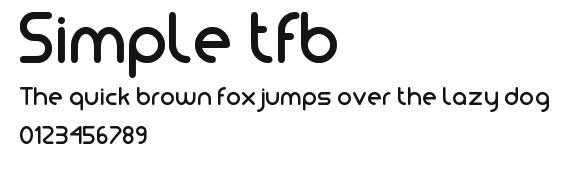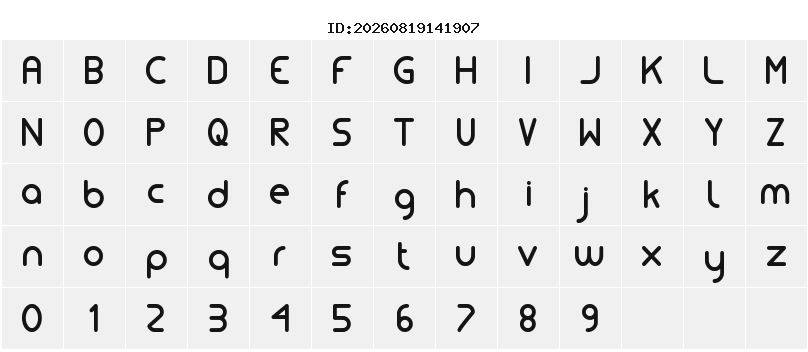
• Font Name: Simple tfb
• Designer: kaiserzharkhan
About Simple tfb.ttf
Simple tfb.ttf is a modern, elegant sans-serif font designed for ultimate readability and visual harmony. Perfect for branding, headlines, web design, and print materials.